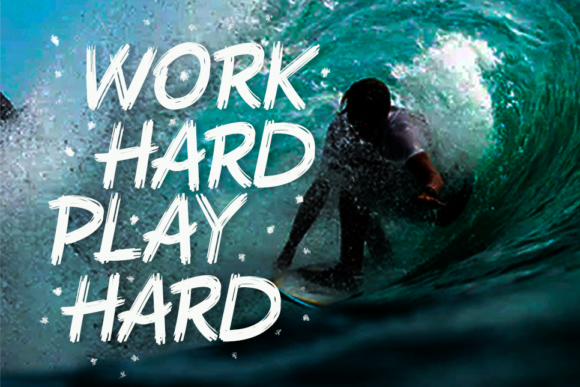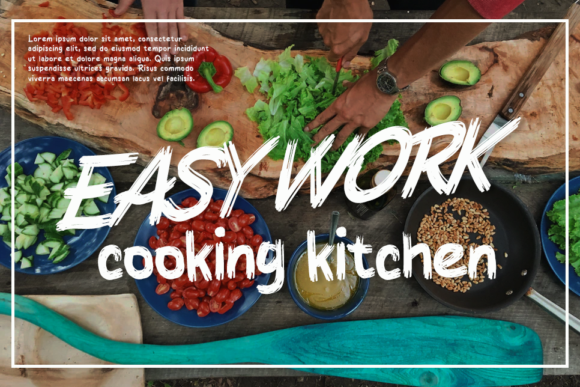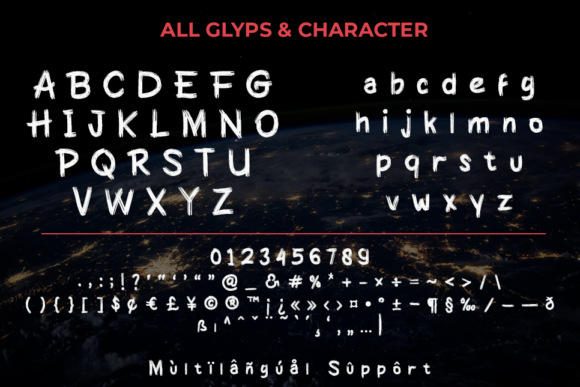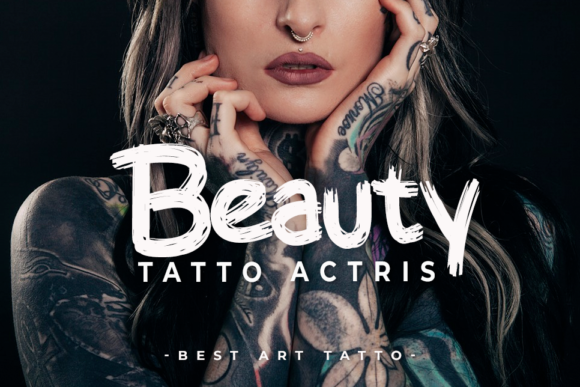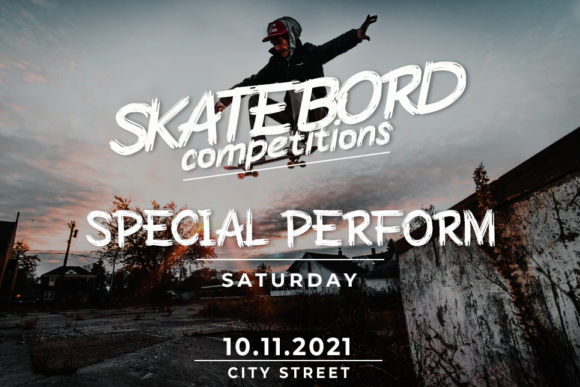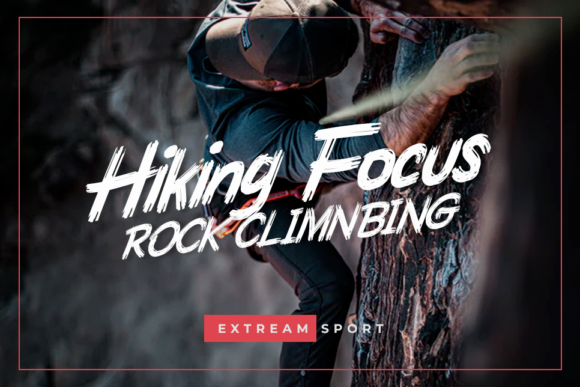
Introduction to Rawyfi Font
Remember that moment when you’re brainstorming ideas for a creative project, and you just can’t seem to find the perfect font to match your vision? The struggle is real, but fear not, designers! We’ve got you covered with the introduction of the Rawyfi Font, a free download that’s about to revolutionize your design game.
Rawyfi Font is a unique, quirky, and versatile handwritten brush font that’s perfect for making your text stand out in all your design projects. Whether you’re working on logos, signatures, labels, packaging designs, quotes, heading titles, or movie titles, this high-quality font is sure to elevate your design to the next level. With a transparent background and a range of styles to choose from, the Rawyfi Font is an invaluable design resource that’s sure to become your go-to font for all your creative needs.
- Its unique characteristics, such as its bold and modern design, make it an excellent choice for designers looking to add a touch of sophistication to their creative projects.
Honest Review: Rawyfi Font
As a designer, I’m always on the lookout for high-quality design resources to elevate my creative projects. Recently, I had the chance to try out the Rawyfi Font, and I’m excited to share my honest review.
Here are some things that work well with the Rawyfi Font:
- ✨ High quality: The font is crisp and clear, making it perfect for digital designs.
- ✨ Versatile: The Rawyfi Font comes in a range of styles, from bold to script, making it suitable for various design projects.
- ⚠️ Limited customization options: While the font is high quality, it’s not easily customizable, which may be a drawback for some designers.
- ⚠️ Not suitable for transparent background designs: The font may not be ideal for designs that require a transparent background, as it may not render correctly.
Overall, I’m impressed with the Rawyfi Font, but it’s essential to consider its limitations before incorporating it into your design projects.
Tips and Use Cases
The Rawyfi Font is ideal for designers working on creative projects that require a unique and high-quality font. Some common use cases include: branding, advertising, and packaging design. To get the most out of the Rawyfi Font, experiment with different font sizes, colors, and combinations to create visually striking designs.